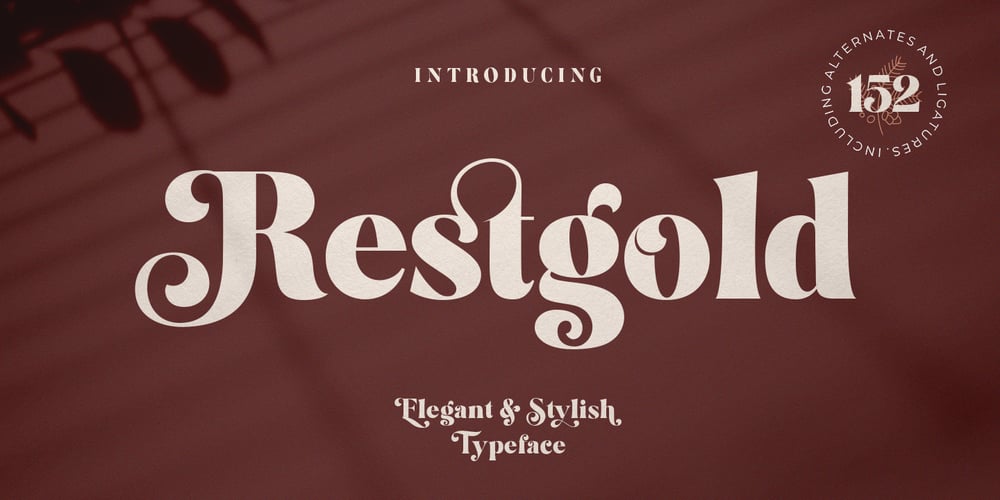
Restgold
Restgold font
Restgold Font Family was designed by Mulkan Nazir and published by Great Studio. Restgold contains 1 styles and family package options. Restgold is modern retro display typeface, featuring a high-contrast design to create elegant, original and expressive characters. It is useful for many purposes, from branding projects, logo, wedding designs, advertisements, product packaging, product designs, labels, photography, posters, invitations, stationery, and much more. Restgold is a serif typeface that is suitable for classy branding and editorial designs. Alternative versions include swash and more than 350+ glyphs and 16 ligatures, allowing for more stylized designs. What’s Included: • Character set A-Z • Uppercase & Lowercase • Numerals & Punctuation • 136 Stylistic alternates & 16 Ligatures • Accented Characters (West Europe) • Recommended to use in Adobe Photoshop or Adobe Illustrator. I hope you enjoy this font. If you have questions, don’t hesitate to give me a message 🙂 Cheers! Great Studio